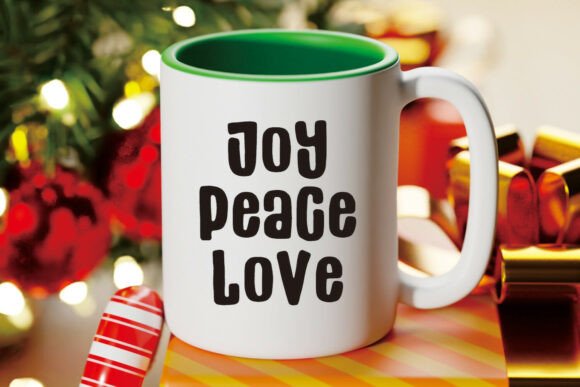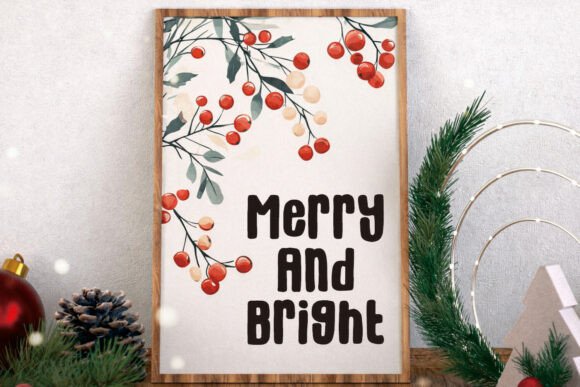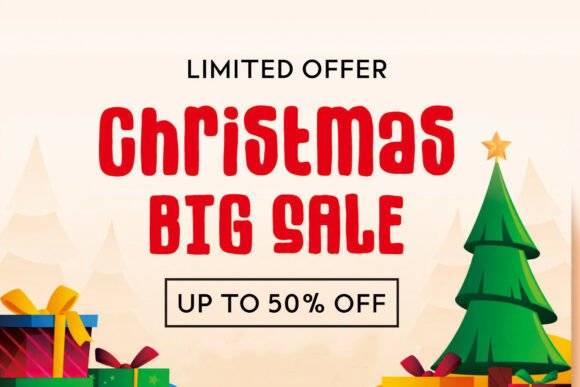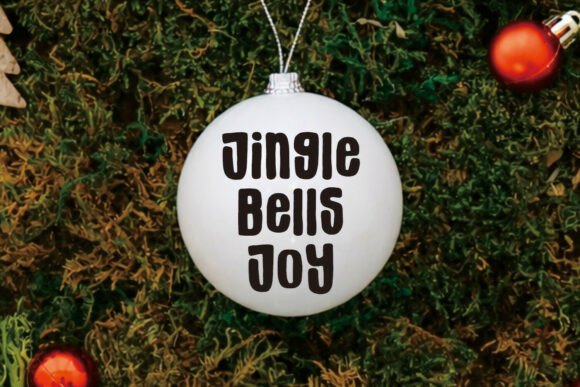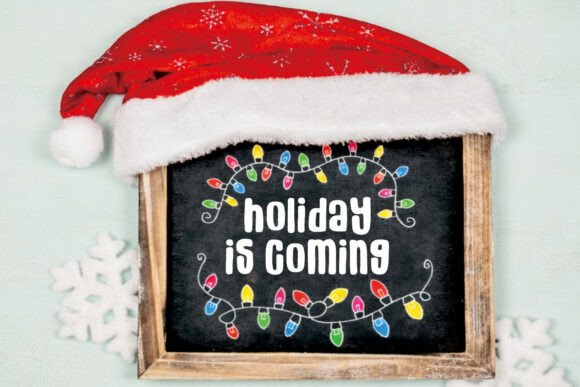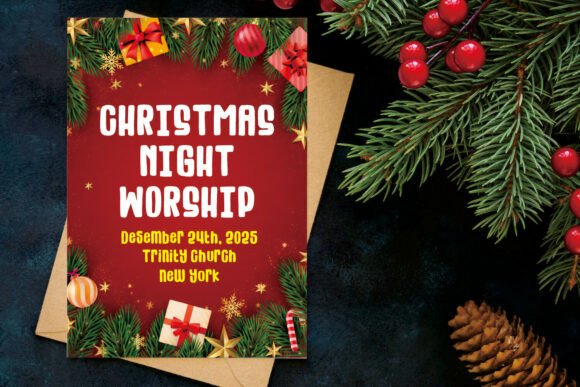
Introduction to Christmas Seafood Font
Christmas Seafood is a cute and playful display font designed to bring joy and warmth to your creative projects.
With its soft curves and cheerful character, this font perfectly blends a festive Christmas feel with a fresh, fun seafood-inspired touch It is easy to read, eye-catching, and full of personality, making it ideal for both digital and handmade designs.